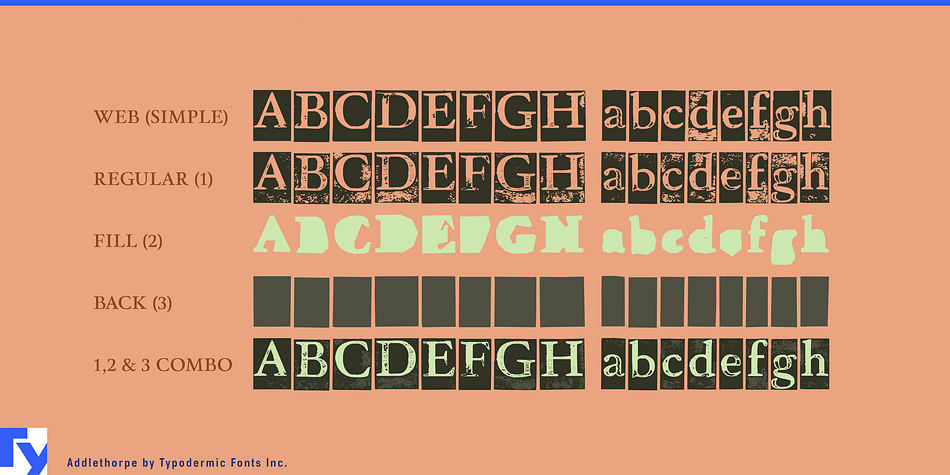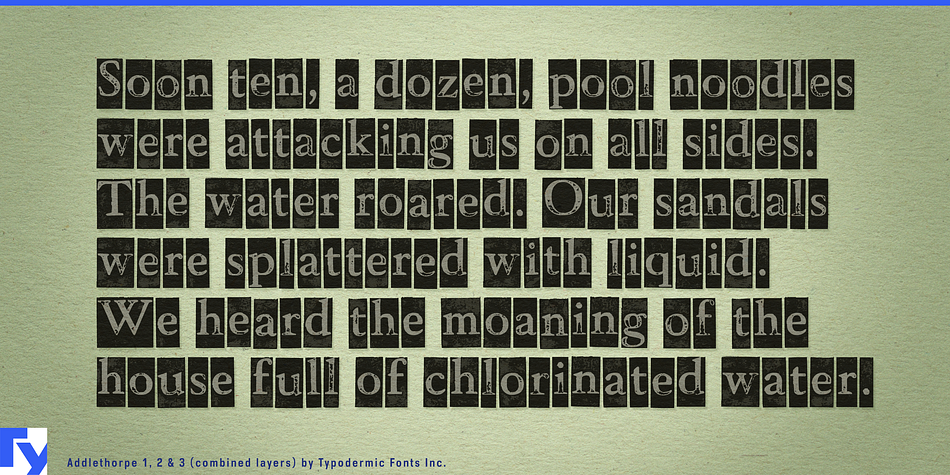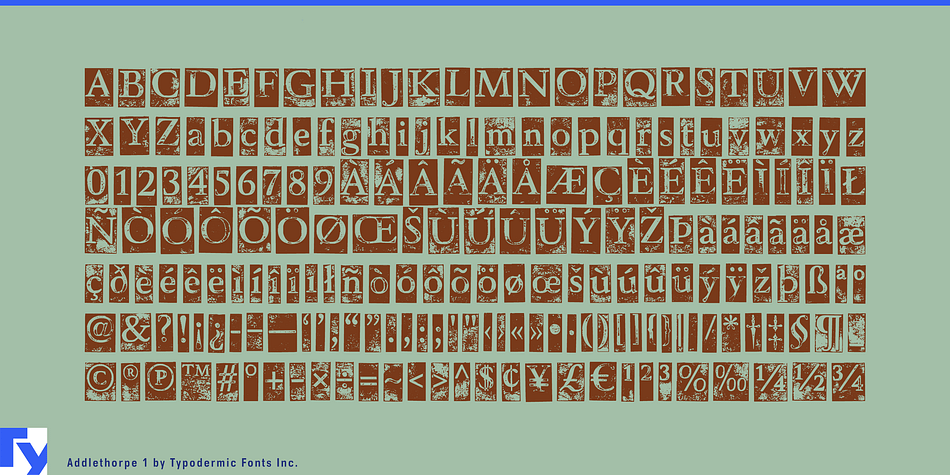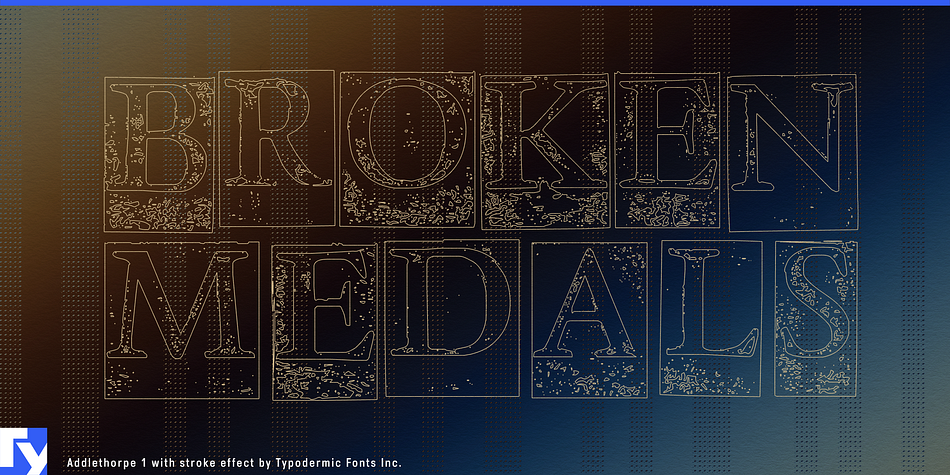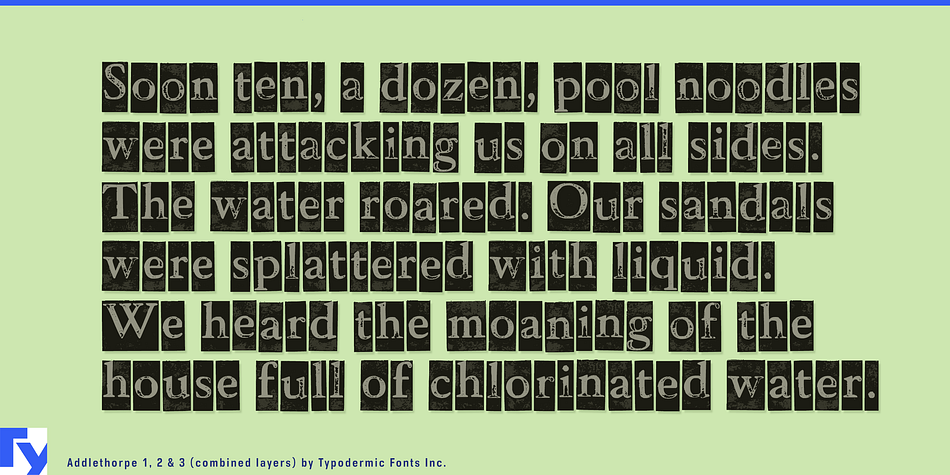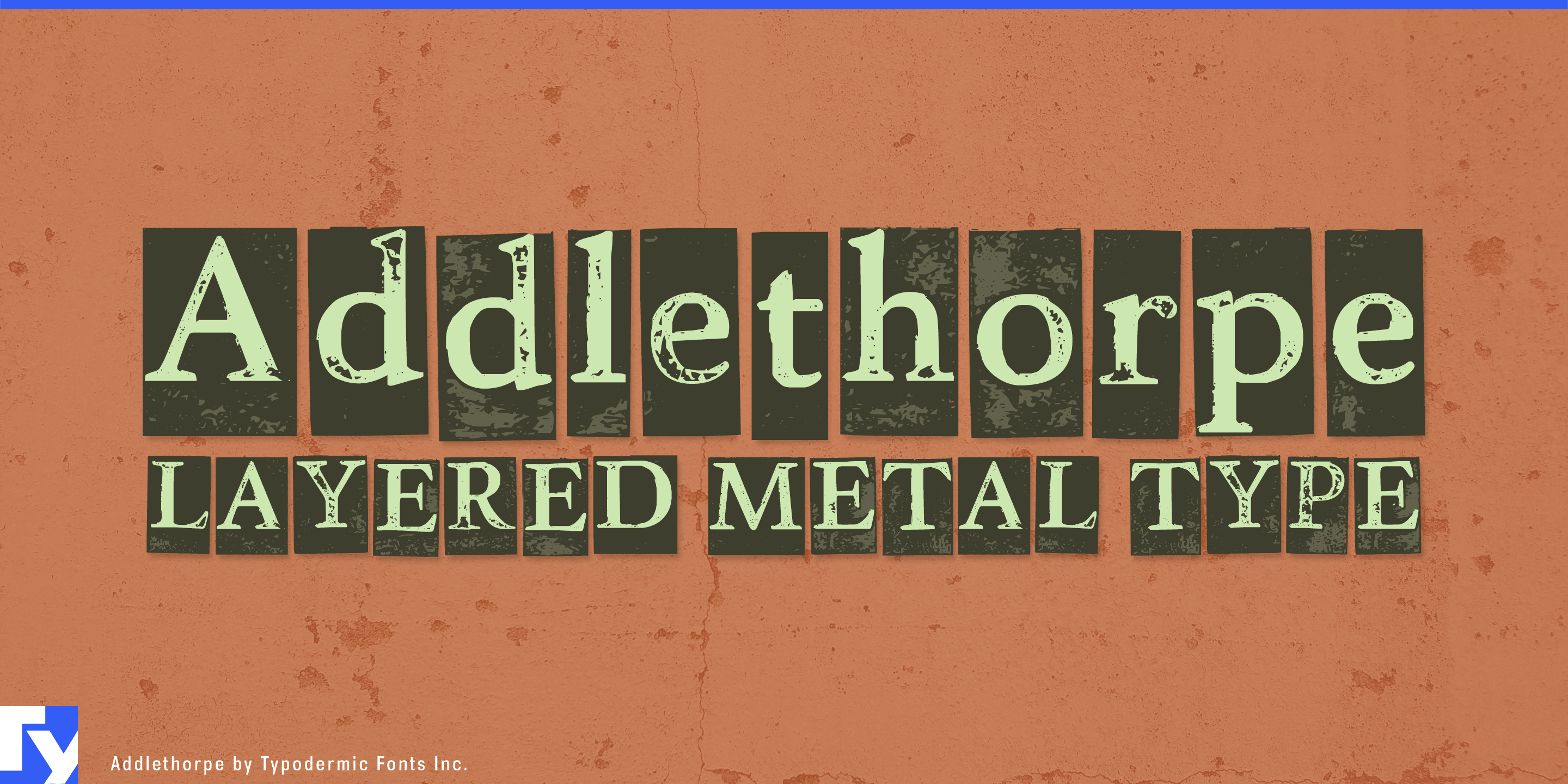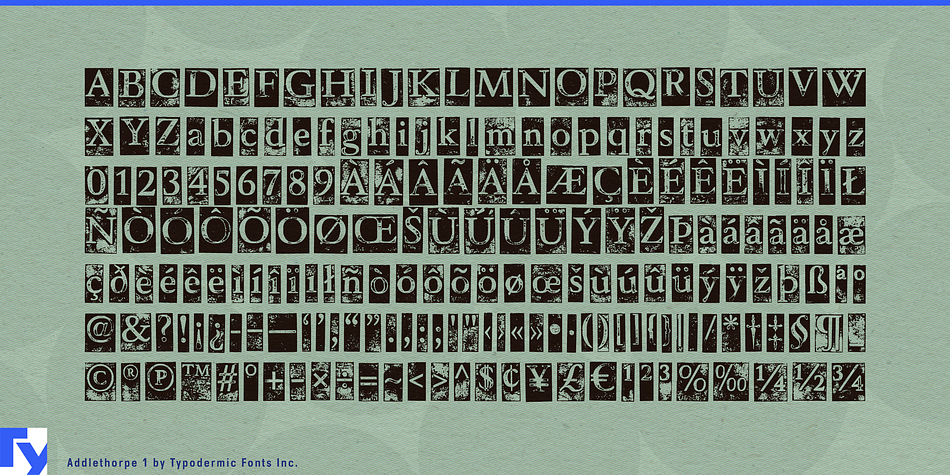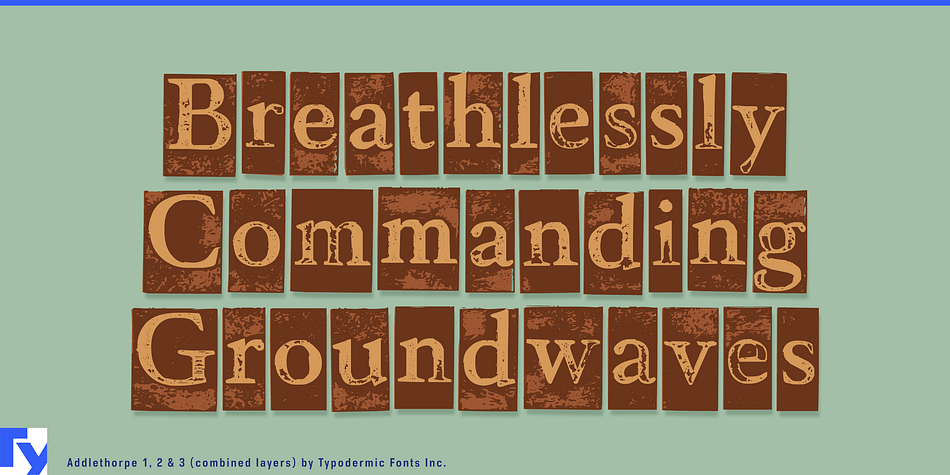
Addlethorpe is a grunge and novelty font family. This typeface has three styles and was published by Typodermic Fonts Inc.
Addlethorpe is a metal font in three layers. Addlethorpe 1 is the foreground layer. If you’re using Addlethorpe on a light background, this may be all you need. Addlethorpe 2 is a fill layer designed to colour the raised letters. Addlethorpe 3 is a rectangular background layer designed to fill in everything else. In OpenType savvy applications you can choose lining or old-style numerals; letter pair autoligs help break up the monotony of obviously repeating letters. Addlethorpe is based on Winthorpe. Addlethorpe 1 is very detailed. Be patient with your application: scaling Addlethorpe takes a lot of computing power.